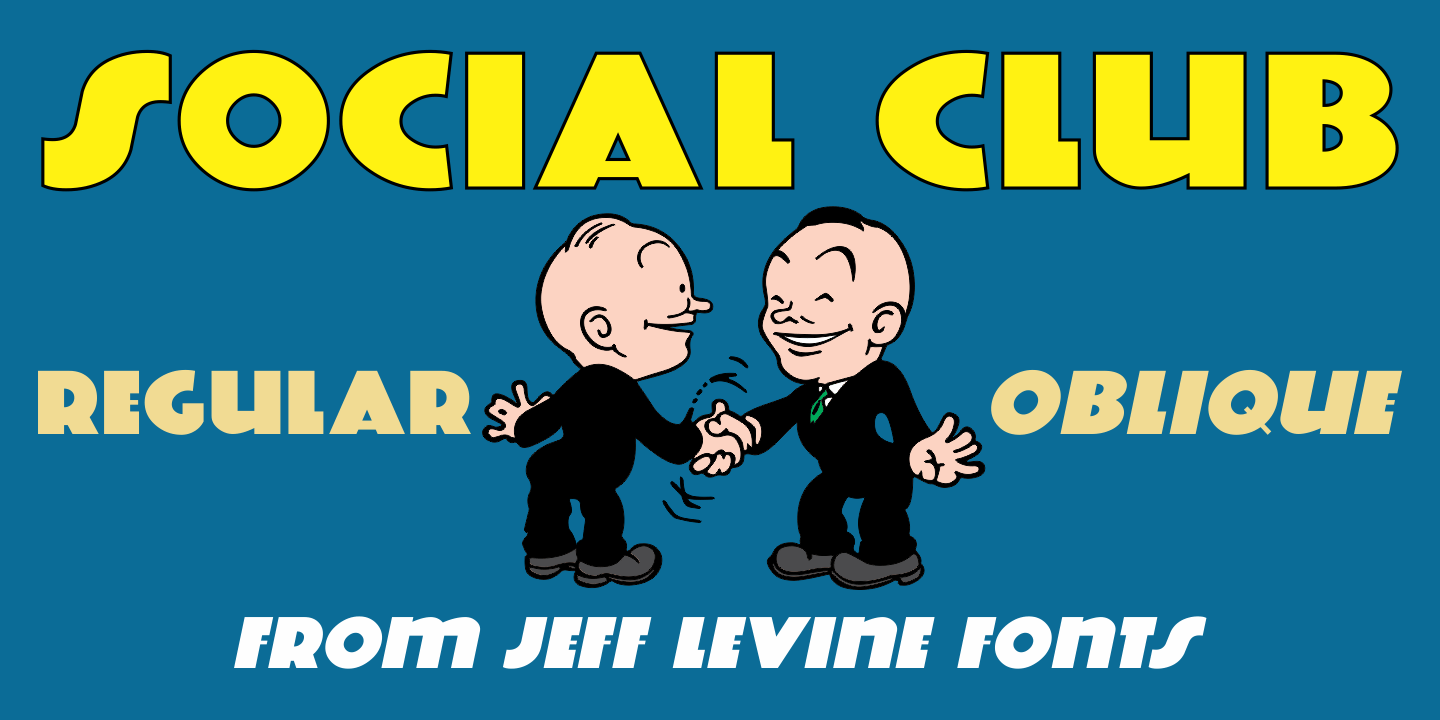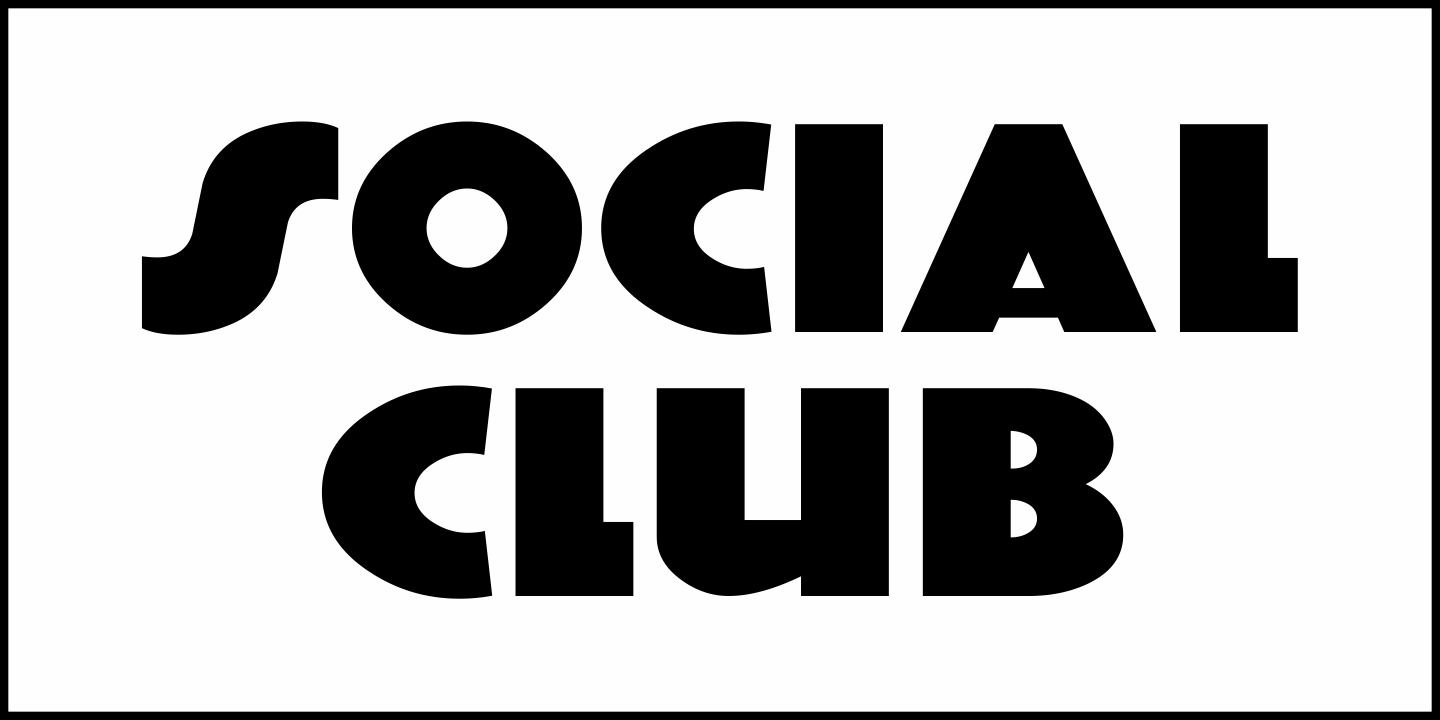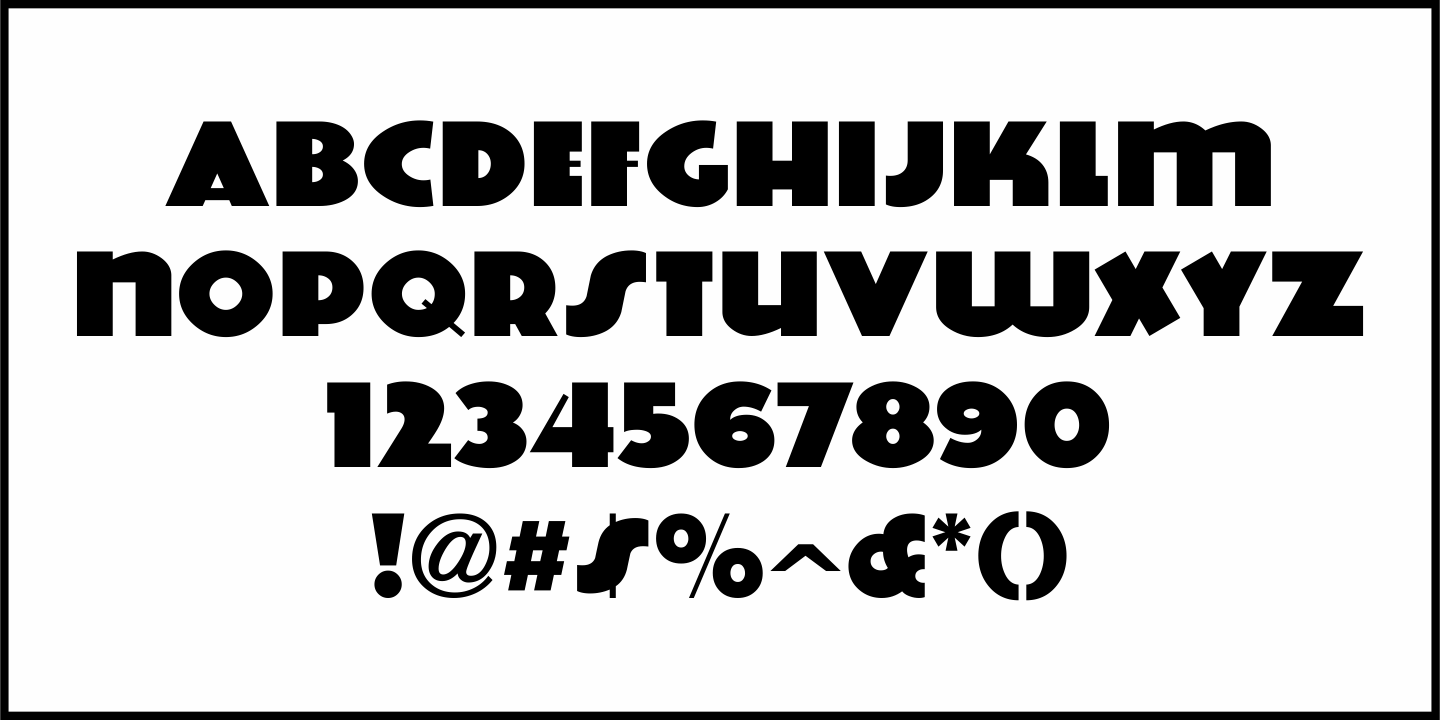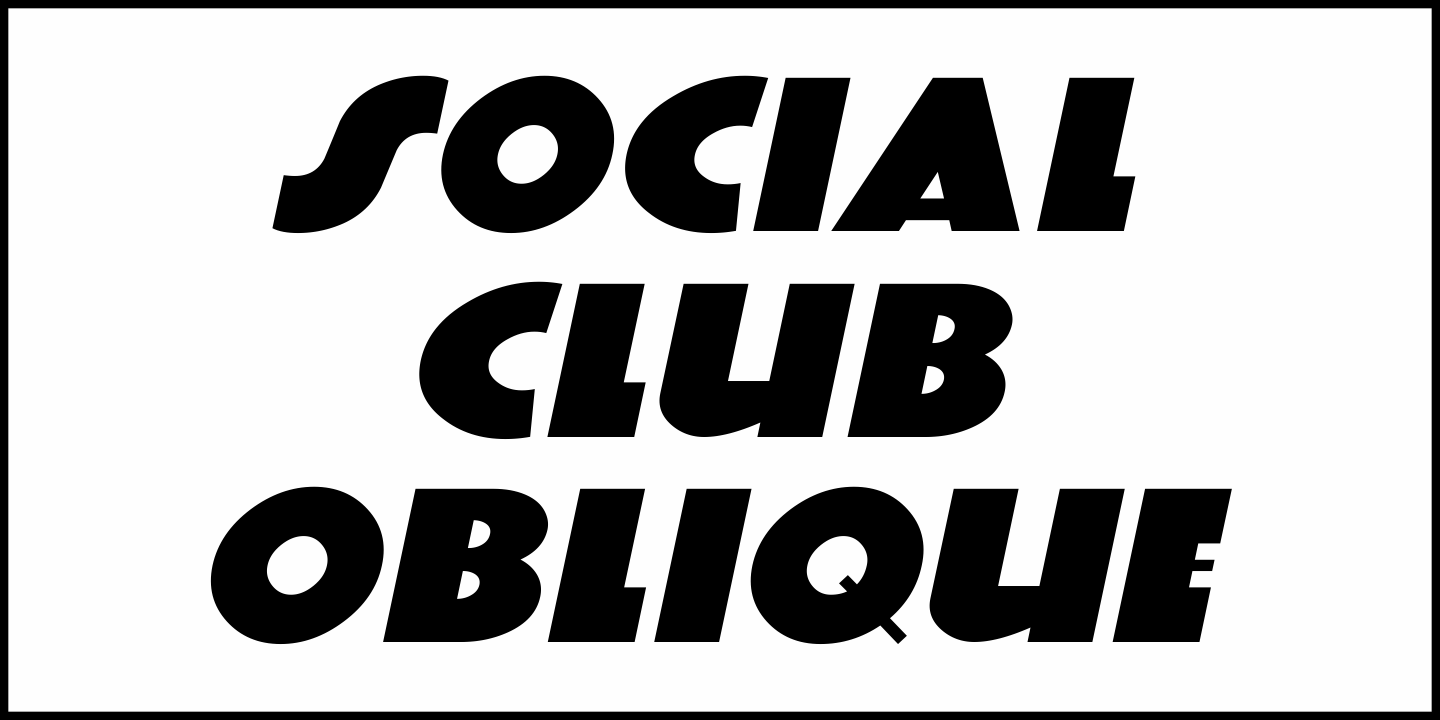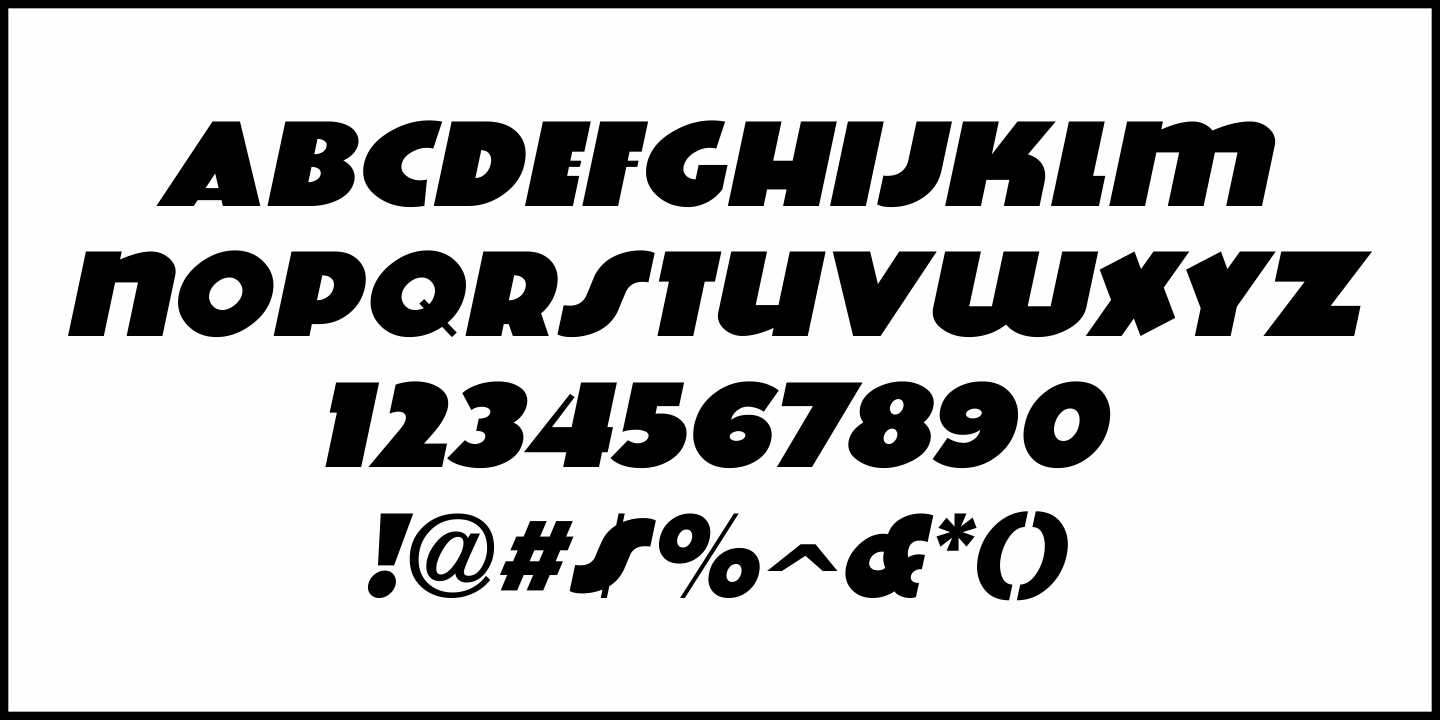
Social Club
The movie poster for the 1934 comedy/crime drama “Jimmy the Gent” (starring James Cagney) featured the title hand lettered in an ultra-bold Art Deco sans serif style.
This type design has been turned into Social Club JNL, and is available in both regular and oblique versions.